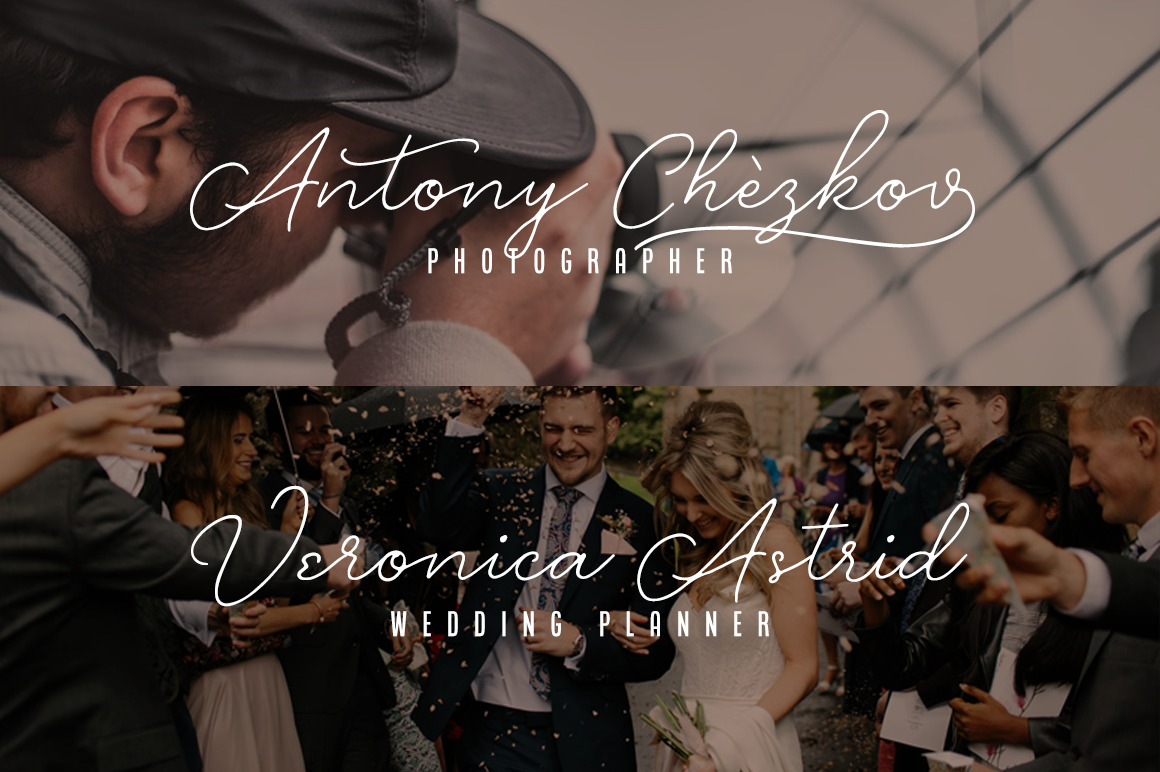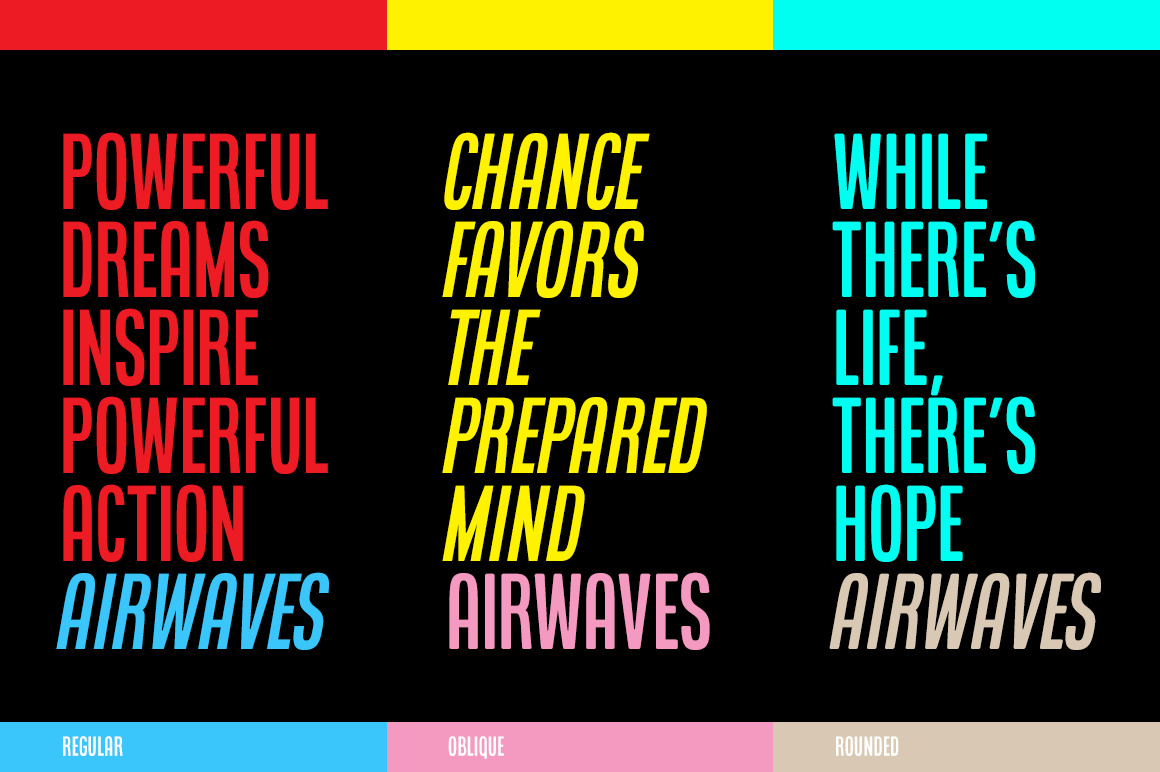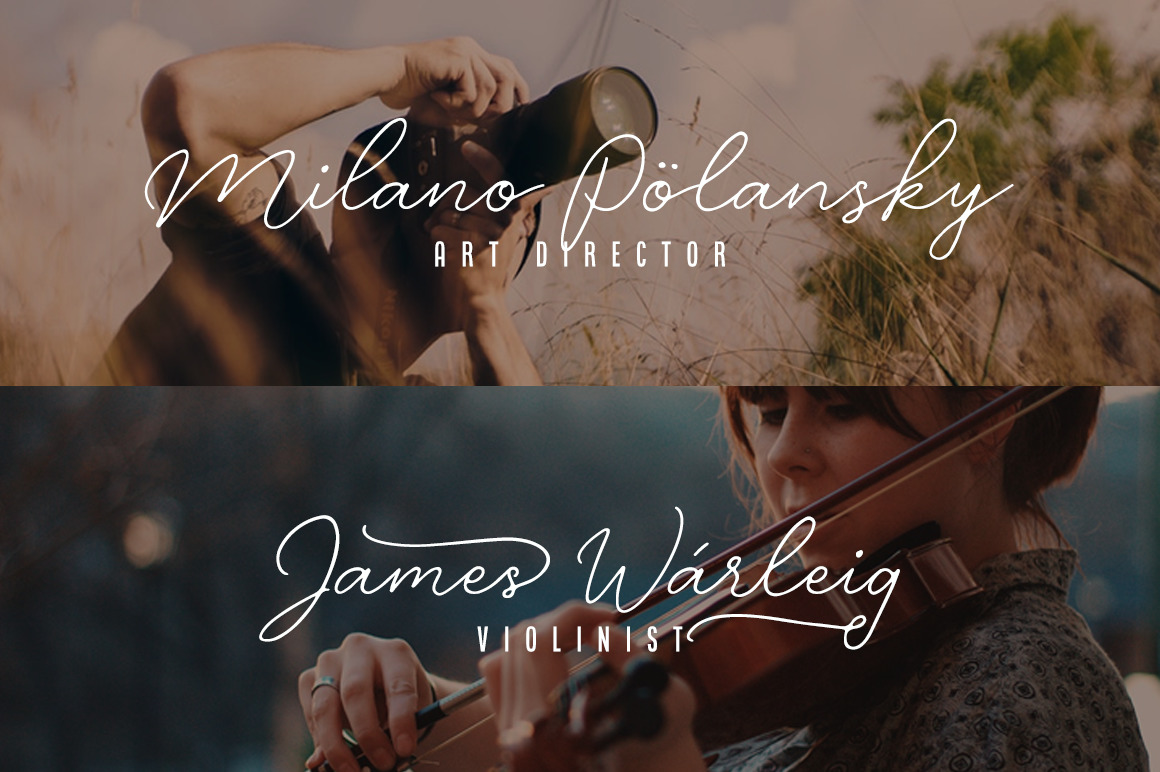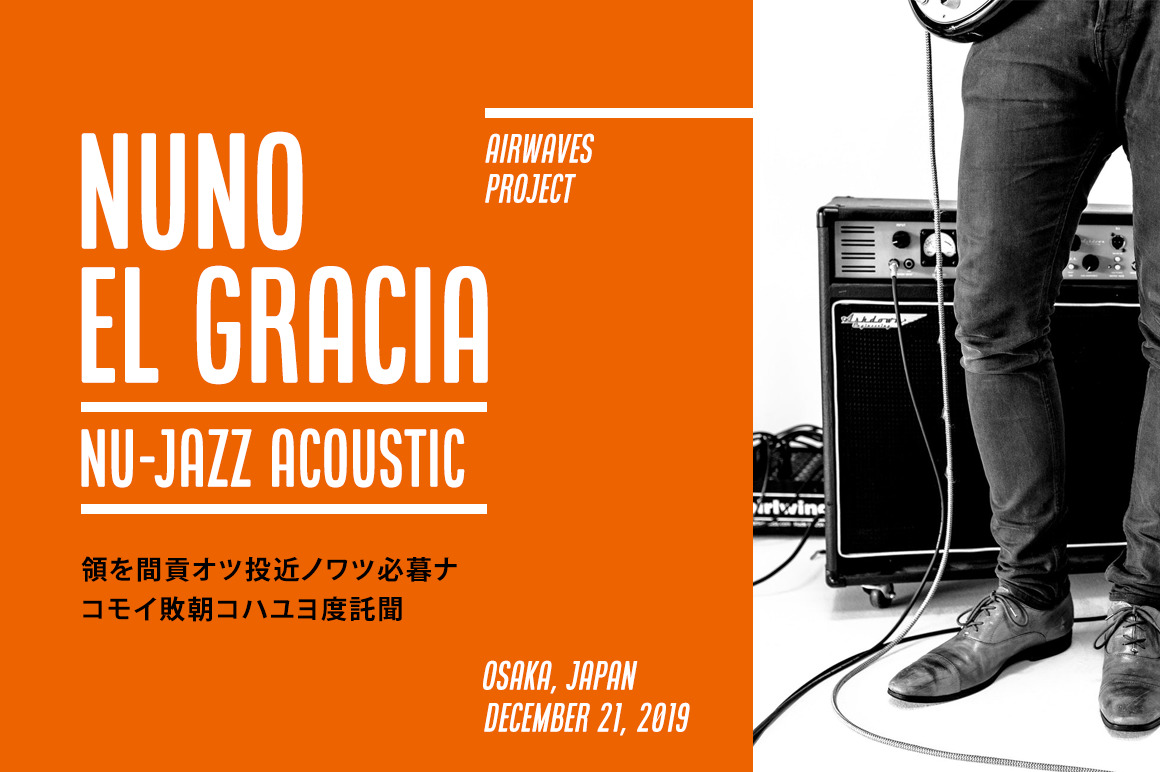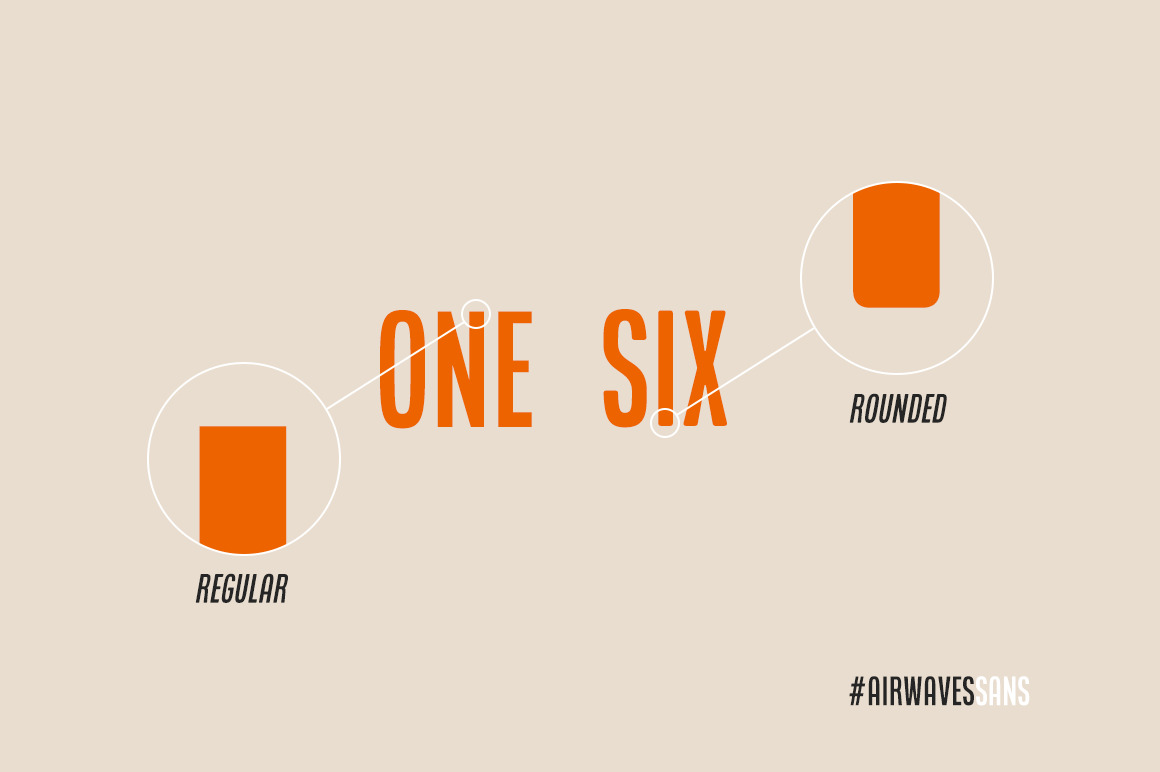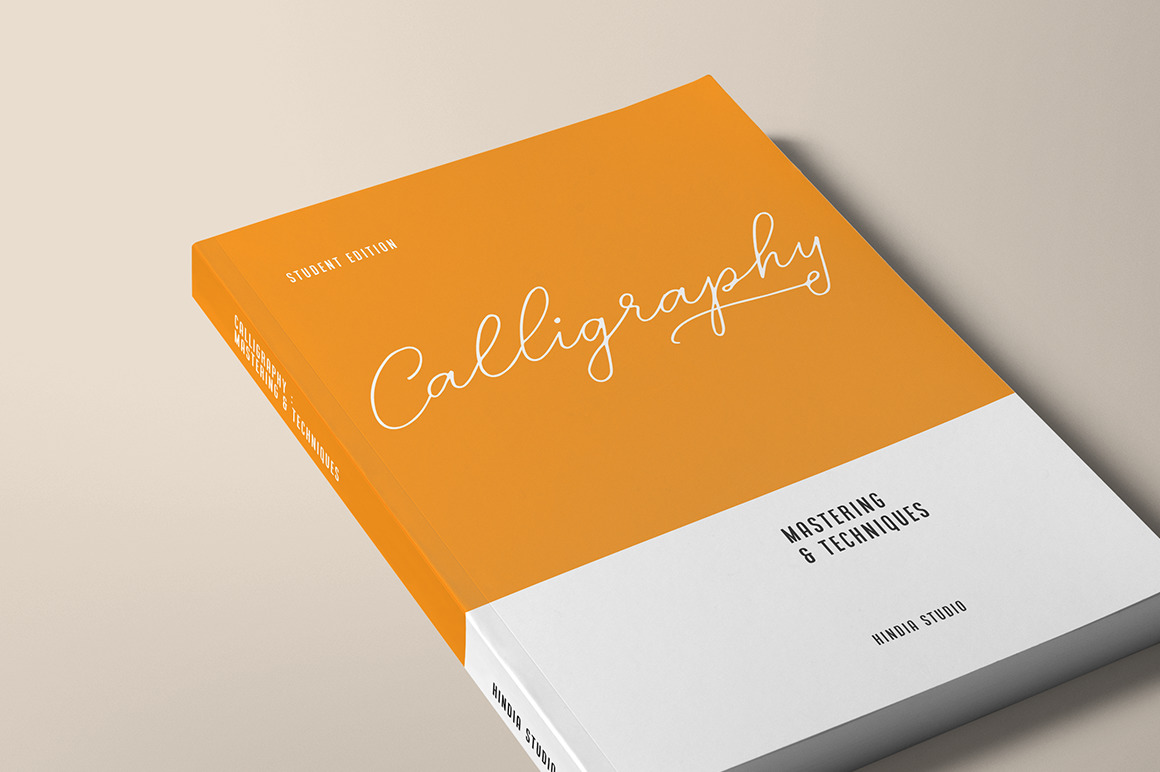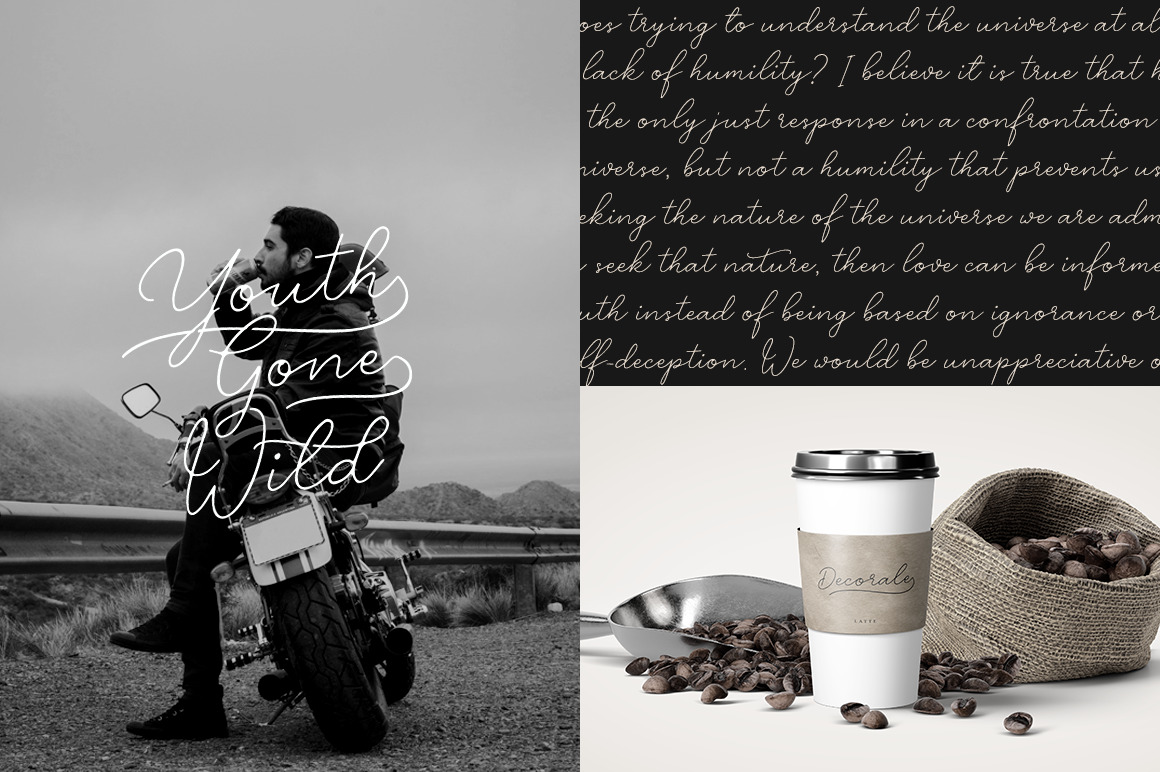
Airways Font Duo
AIRWAVES FONT DUO | Solid condensed sans & signature-ish script
Airwaves is a gorgeous font duo that unites condensed sans serif & signature-ish script together into a supercool package. It comes with 6 styles in total, awesome right? The condensed versions are solid and intentionally making strong statements even in small spaces. In addition to the condensed sans, Airwaves also provides the script version which has sleek cursive with thinline stroke and classy flow. It comes with various opentype alternates to achieve the natural handwriting look. Airwaves is simply beautiful and will fit nicely into your projects.
Sans Features:
- All caps
- Numerals & Punctuations
- Accents (Multilingual characters)
Script Features:
- Numerals & Punctuations
- Accents (Multilingual characters)
- Stylistic alternates 01 : A-Z, a-z
- Stylistic alternates 02 : a-z
- Stylistic alternates 03 : a-z
- Stylistic alternates 04 : d, e, g, j, s, t, y
- Ligatures